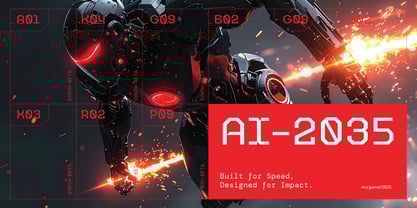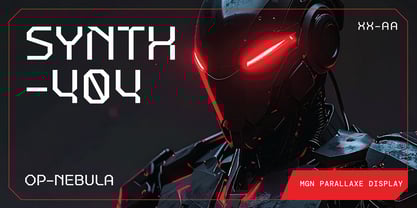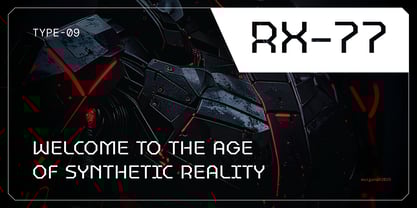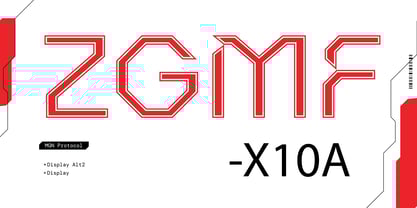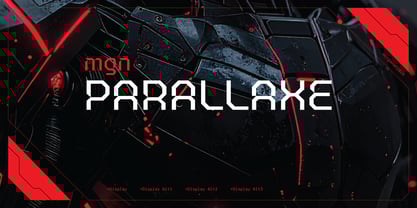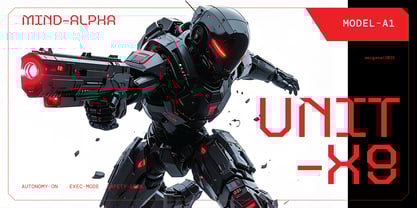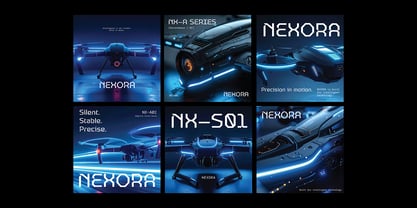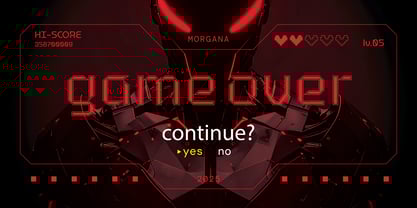
MGN Parallaxe
The MGN Parallaxe Font Family was designed by Muhamad Masyhuri, Fattah Setiawan and published by Morgana Studio. MGN Parallaxe contains 4 styles and family package options.
MGN Parallaxe is a sci-fi typeface designed by Morgana Studio in 2025, featuring bold, angular letterforms that convey a futuristic, robotic aesthetic. Its geometric construction and mechanical precision make it ideal for projects related to technology, artificial intelligence, or electronic music. The font combines strong uppercase characters with a sleek, thinner variant, maintaining a cohesive high-tech feel across different weights. With sharp lines and a modular rhythm, MGN Parallaxe delivers a modern, visionary look perfect for branding, posters, and digital interfaces.